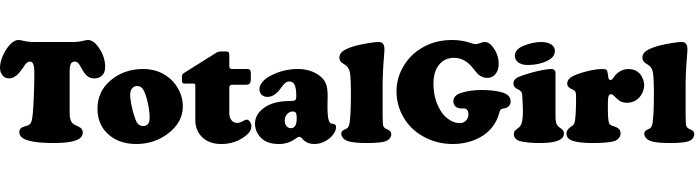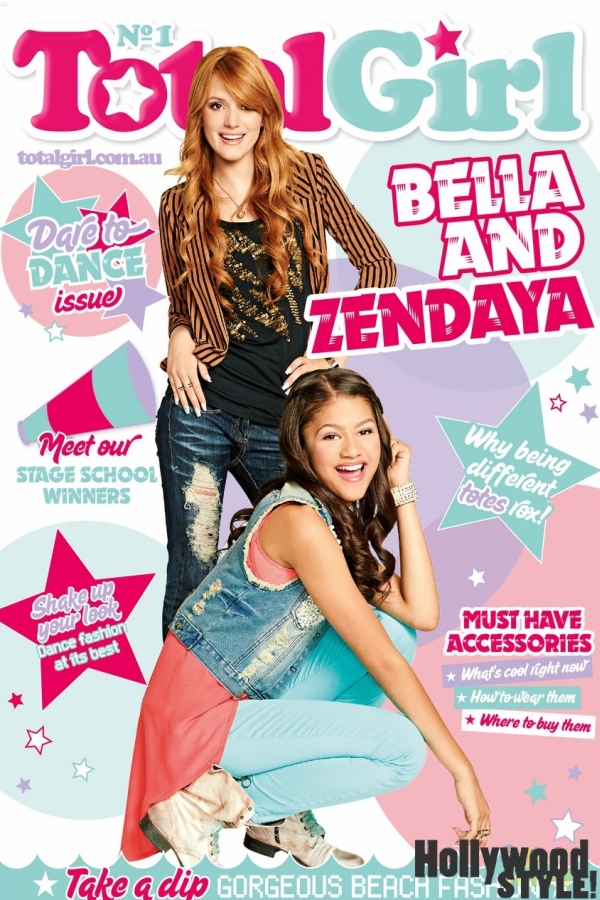
Total Girl Font
BookTotal Girl is an Australian magazine aimed at pre-teen and teenage girls. It covers topics such as fashion, beauty, celebrities, entertainment, and social issues.
Cooper Black is the font used for the magazine's nameplate. It was created in 1921 by Oswald Bruce Cooper and is an ultra-heavy serif typeface based on his earlier typeface Cooper Old Style, which was popular in the 1920s and 1930s. More information about Cooper Black can be found here.